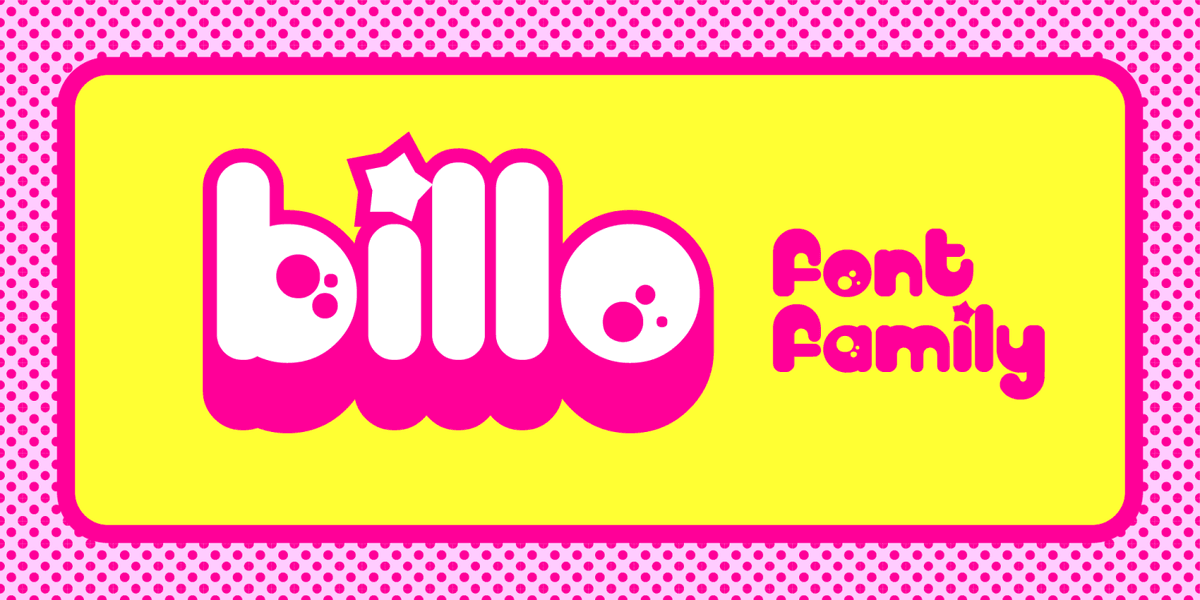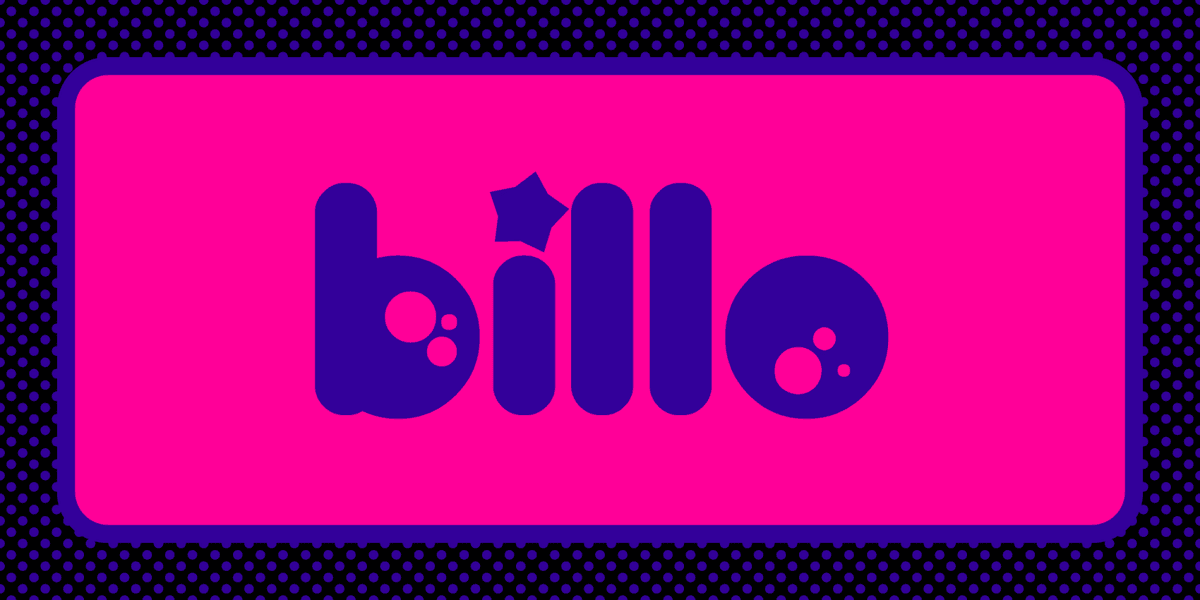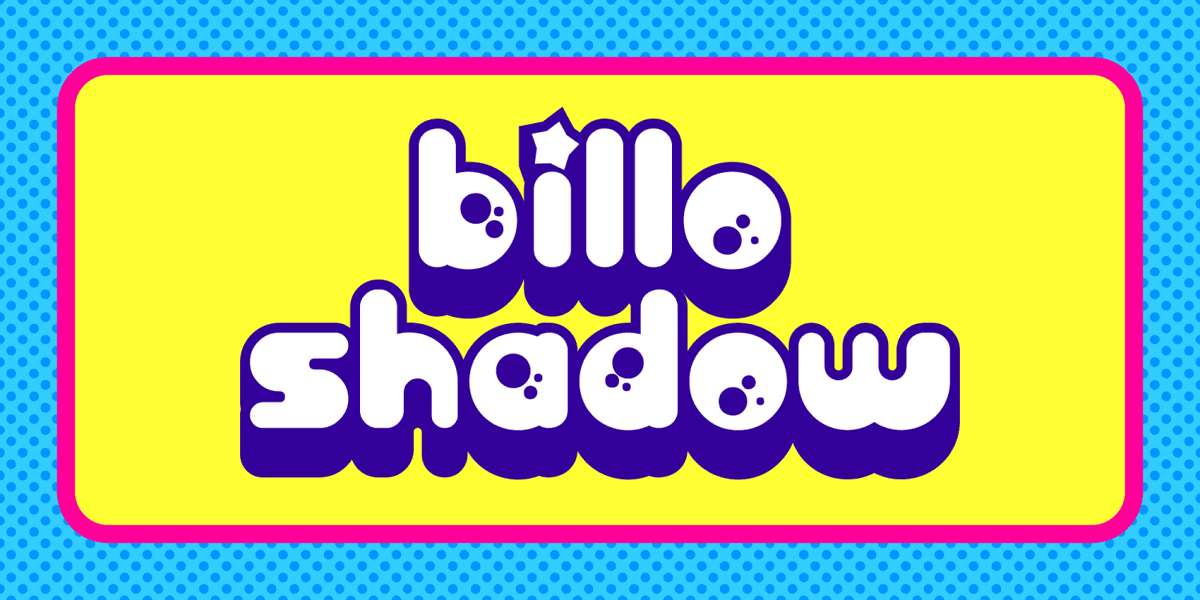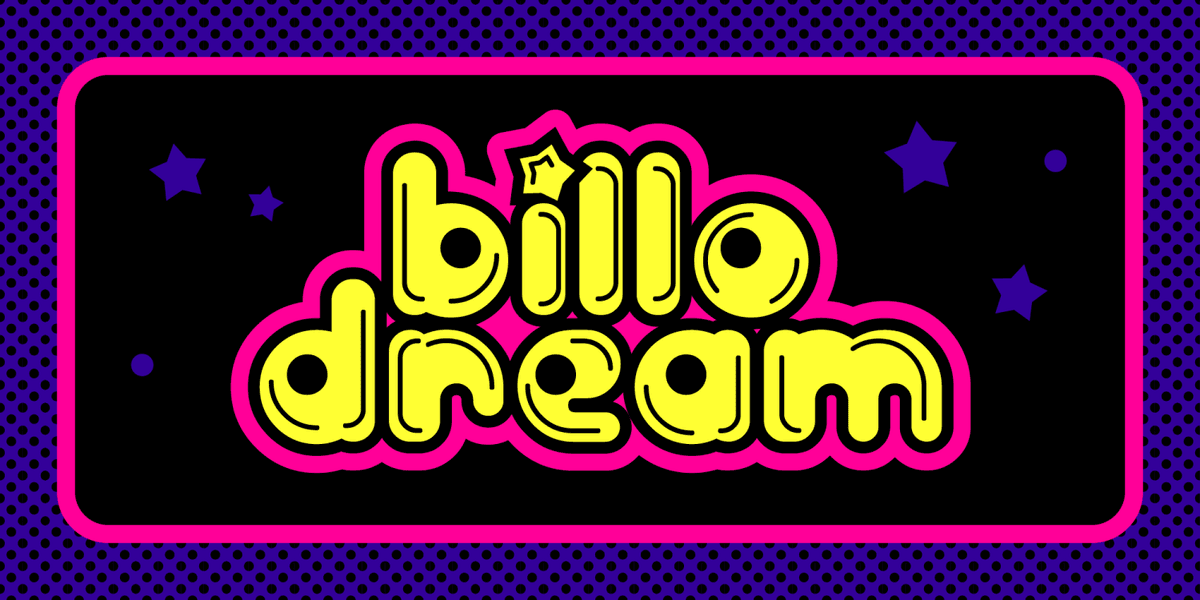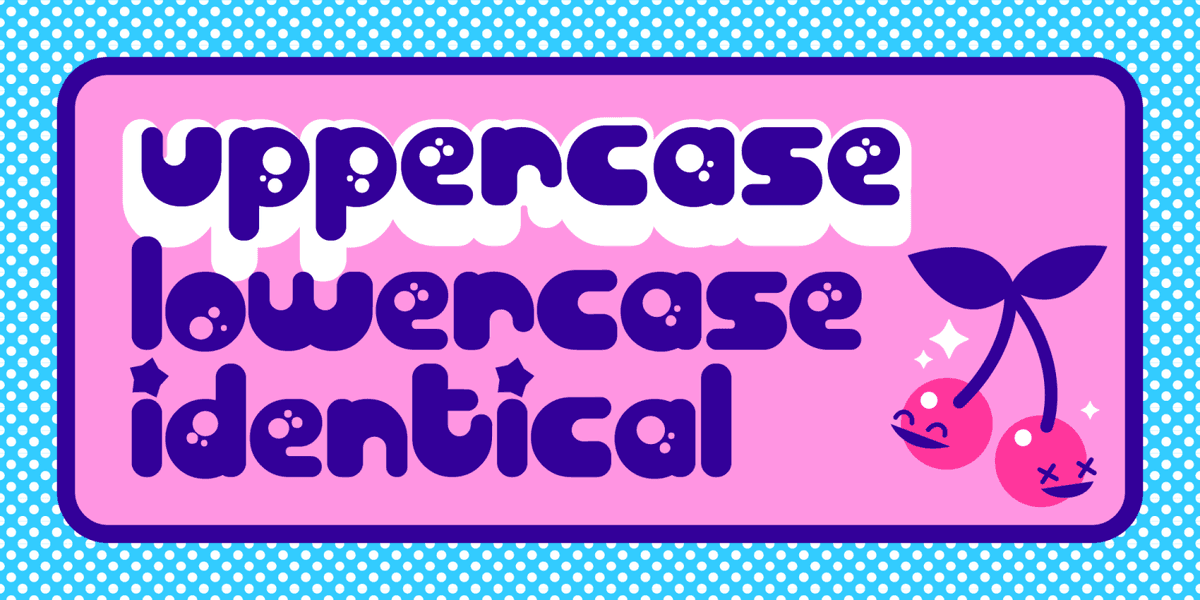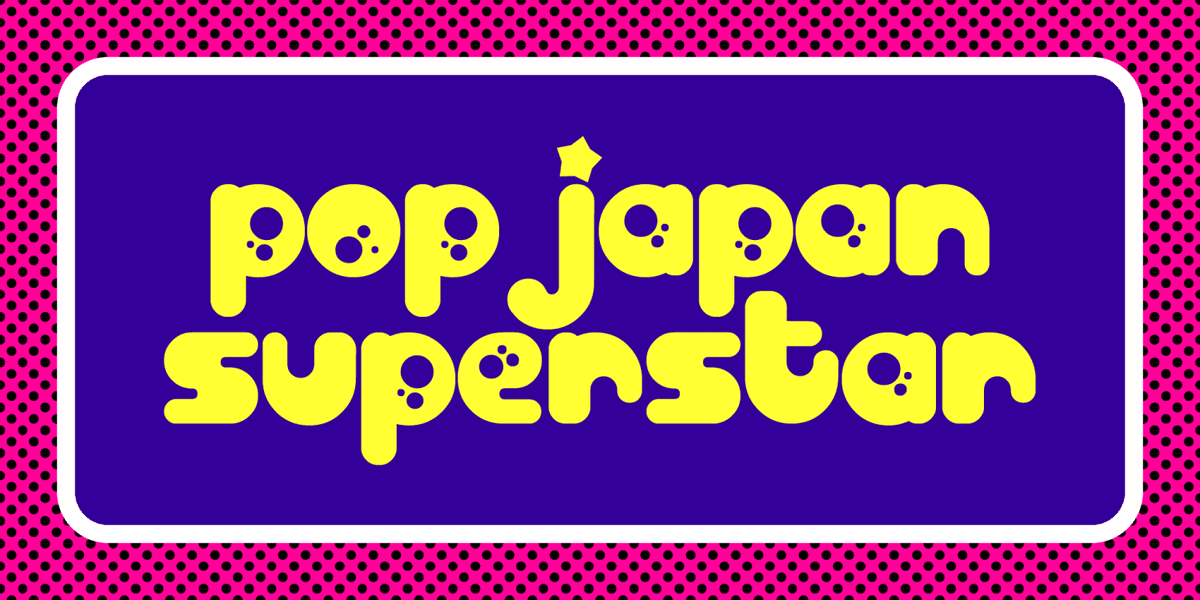
Every once in a while, I'll put together a font we, in the industry, like to call a "quickie". Basically, that is when you crank out a font in lightning speed with no regard for any kind of rules or regulations. Everything about this font screams "quickie". The reason? Could it be for the artwork of the new Tri-Delt 6th Annual Wet T-Shirt Contest next month? You wish.